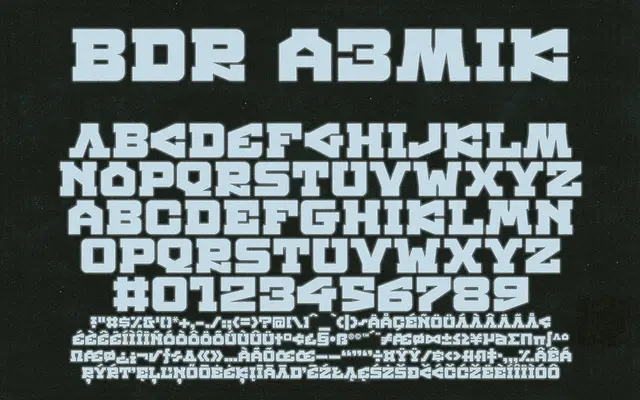
BDR A3MiK
Type Different · 2009
An all-caps geometric display face from 2009 with a hard, constructivist structure suited to science fiction titling, covering Latin, Cyrillic, Greek and Japanese Katakana.
Built around rigid, angular letterforms, this single-weight display face is aimed squarely at titling in science fiction contexts. The glyph set is unusually broad for a niche display font, extending beyond Latin Extended to include Russian Cyrillic, Greek and Japanese Katakana. It offers no italic or weight variants, making it a specialist tool rather than a workhorse.
An all-caps constructivist display face with rigid, angular geometry and a futuristic aesthetic, designed specifically for titling rather than body text.